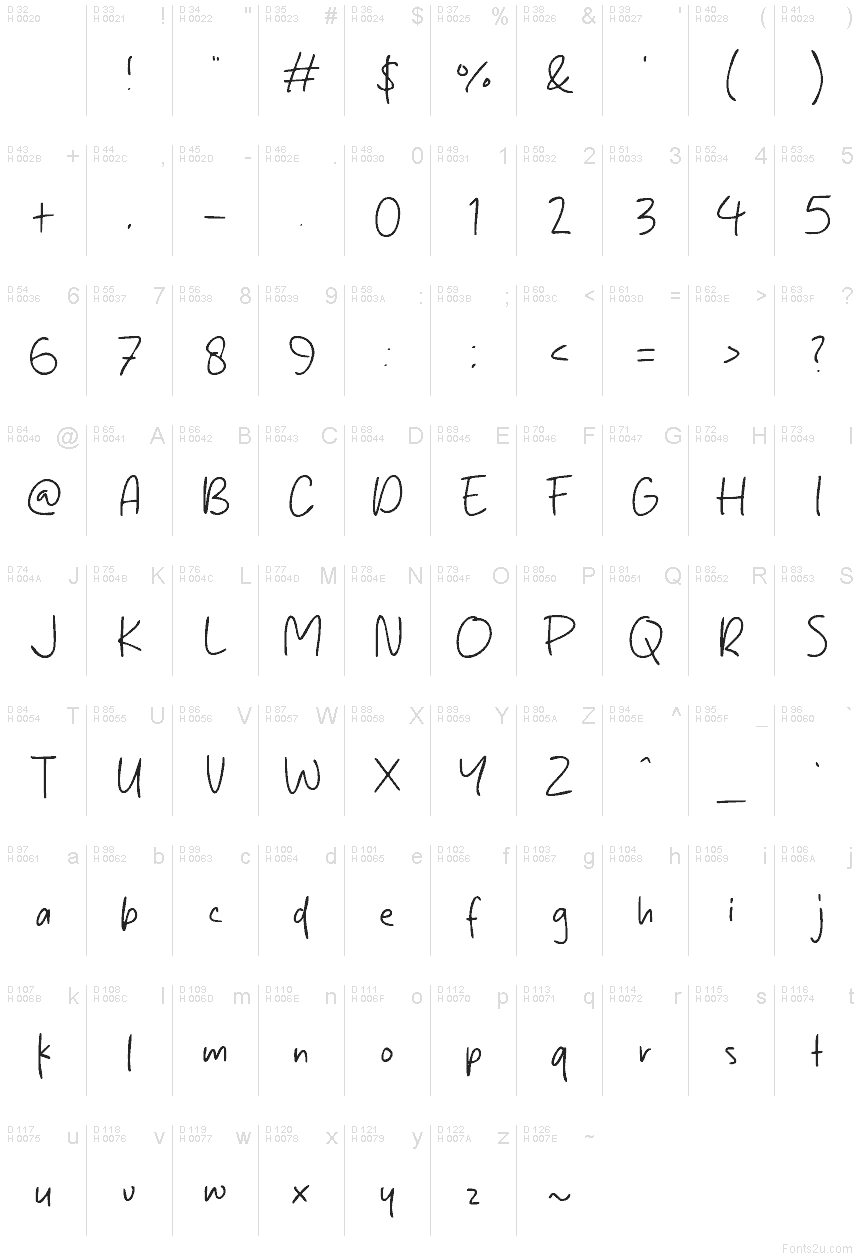
Tuesday Lovely
Tuesday Lovely font by MJType is a charming handwritten style font that captures an informal and friendly aesthetic. Its casual, organic flow makes it visually appealing and easy to read, offering a bespoke touch for any creative project. This carefully crafted font is free and enriches everything it touches with its lively personality.